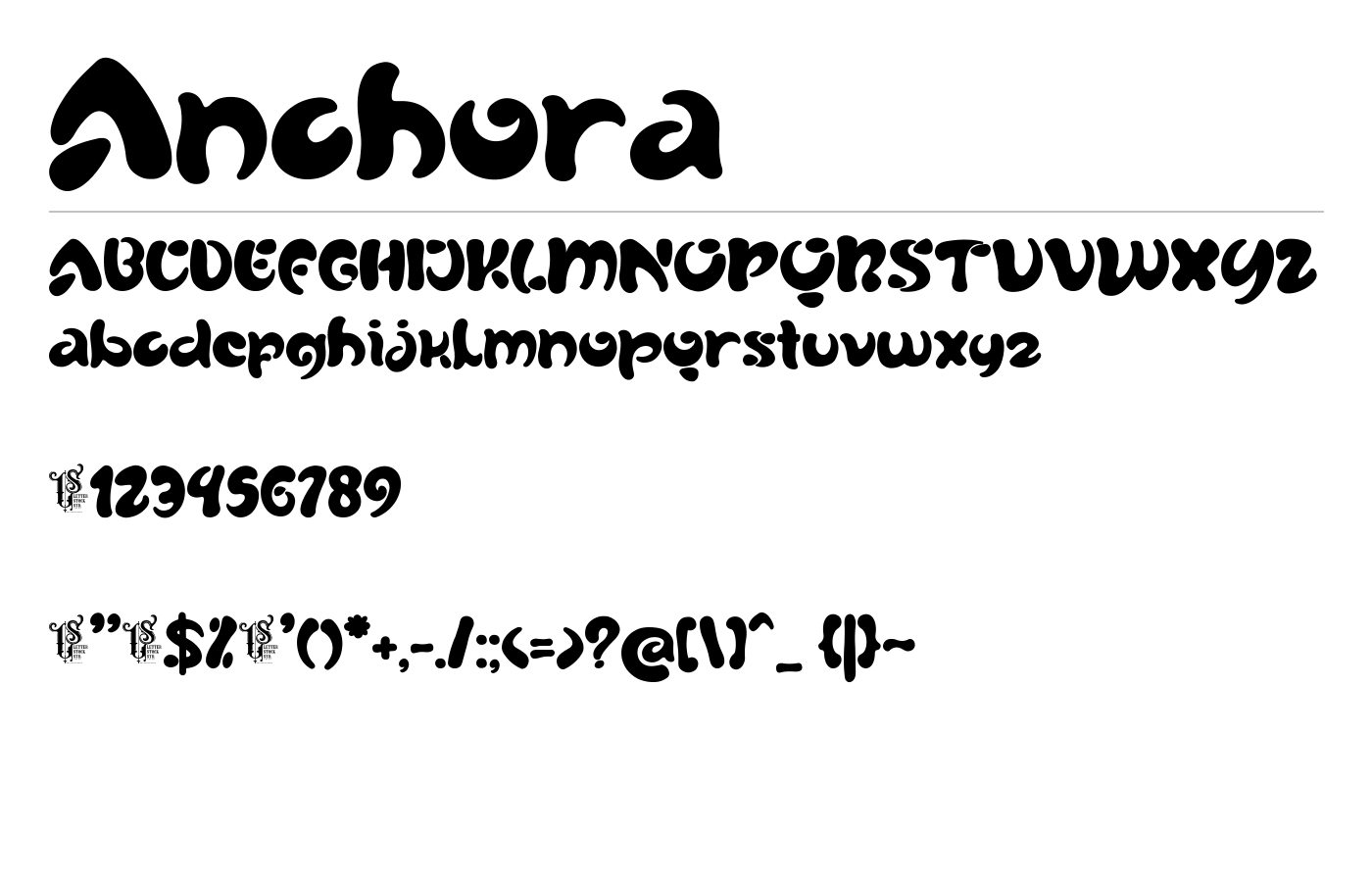
Anchora is a bold, playful display font with an organic, rounded style that features thick, chunky strokes and smooth, flowing curves. Its unique letterforms, including whimsical uppercase shapes and a single-story lowercase 'g', give it a fun, creative personality, making it ideal for eye-catching headlines, branding, and artistic projects where a charming and distinctive look is desired. This font works well in contexts that want to convey friendliness and originality with a touch of retro vibe.
Anchora Font
About Anchora Font
| Font family | Anchora Font |
| Designer | letterstock std |